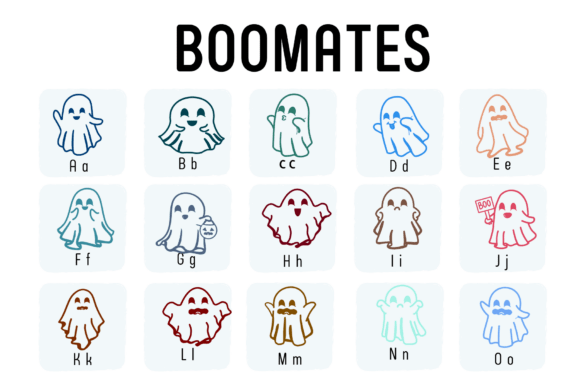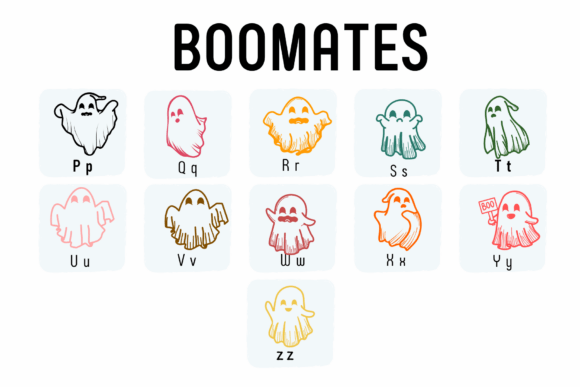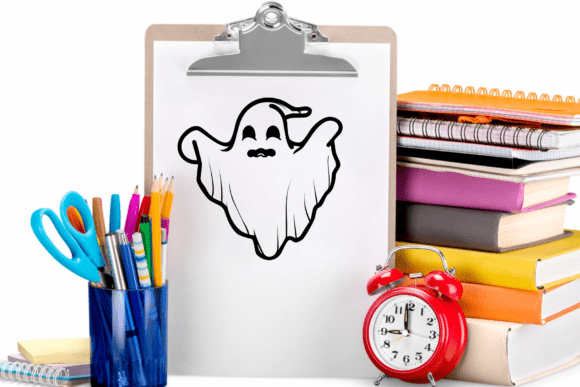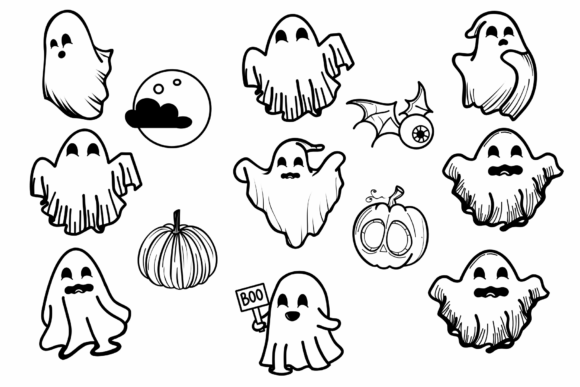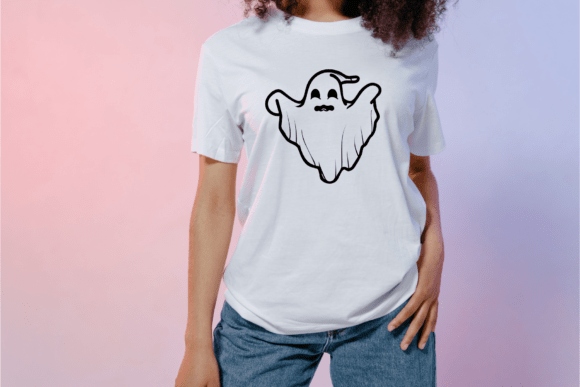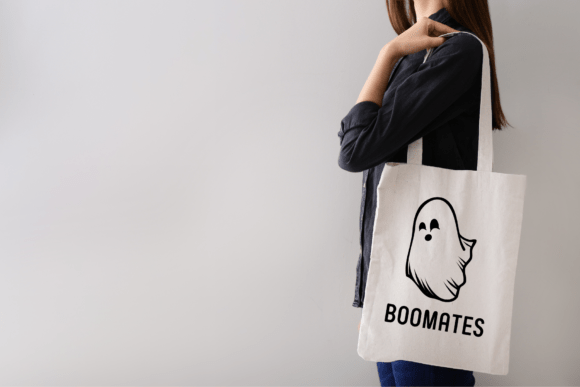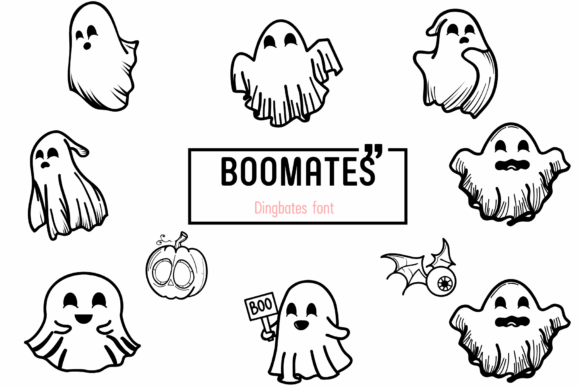
Introducing BooMates Font: The Spooky Dingbats Font for Creative Projects
Are you a designer, crafter, or DIY enthusiast looking for a unique and spooky font to add a touch of eeriness to your creative projects? Look no further than BooMates, a dingbats font with a spooky theme that’s perfect for a wide range of applications. In this article, we’ll explore the features and benefits of BooMates, and show you how it can enhance your wedding invitations, DIY projects, crafts, decorations, logos, and many other creative ideas.
What is BooMates Font?
BooMates is a dingbats font that features a collection of spooky and fun symbols, icons, and characters. The font is designed to add a touch of Halloween spirit to your creative projects, but it’s versatile enough to be used throughout the year. With BooMates, you can add a playful and whimsical touch to your designs, making it perfect for projects that require a bit of personality and flair.
Key Features of BooMates Font
- Spooky theme: BooMates features a range of spooky symbols, icons, and characters that are perfect for Halloween-themed projects or for adding a touch of eeriness to your designs.
- Dingbats font: BooMates is a dingbats font, which means it’s made up of symbols, icons, and characters rather than traditional letters and numbers.
- Versatile: BooMates can be used for a wide range of creative projects, from wedding invitations and DIY crafts to decorations, logos, and more.
Creative Ways to Use BooMates Font
BooMates is a versatile font that can be used in a wide range of creative projects. Here are some ideas to get you started:
- Wedding invitations: Add a touch of spooky elegance to your wedding invitations with BooMates. Use the font to create custom illustrations, icons, and graphics that set the tone for a unique and memorable wedding celebration.
- DIY crafts: BooMates is perfect for DIY crafts, such as making spooky decorations, gift tags, and cards. Use the font to add a personal touch to your crafts and make them stand out.
- Decorations: Use BooMates to create custom decorations for your home or office. Design spooky signs, banners, and garlands to add a touch of eeriness to your space.
- Logos: BooMates can be used to create unique and memorable logos for businesses, events, or personal projects. Use the font to create a custom logo that stands out from the crowd.
Tips for Using BooMates Font
Here are some tips for getting the most out of BooMates:
- Experiment with different sizes and colors: BooMates looks great in a range of sizes and colors. Experiment with different combinations to find the one that works best for your project.
- Combine with other fonts: BooMates can be paired with other fonts to create a unique and interesting look. Try combining it with a traditional font for a striking contrast.
- Use it sparingly: BooMates is a bold and eye-catching font, so use it sparingly to avoid overwhelming your design.
BooMates is a unique and versatile dingbats font with a spooky theme that’s perfect for a wide range of creative projects. With its bold and eye-catching symbols, icons, and characters, BooMates can add a touch of eeriness and personality to your designs. Whether you’re a designer, crafter, or DIY enthusiast, BooMates is a great addition to your font collection. So why not give it a try and see how it can enhance your creative projects?